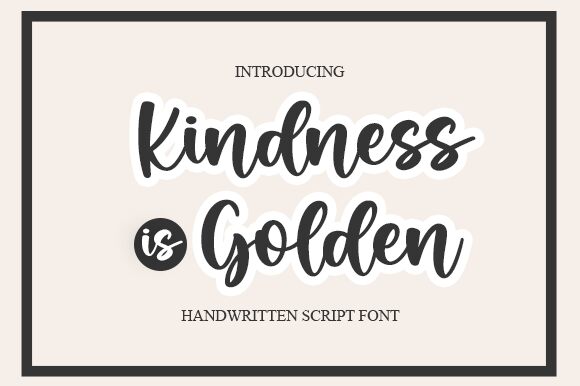
Kindness Is Golden
Kindness is Golden, the smooth brush semi-bold font designed by Graphix Line Studio, is the perfect choice for your next creative project. Its fluid strokes and soft curves lend a unique touch of elegance and sophistication to any design. Whether you're working on a wedding invitation, logo design or a social media graphic, Kindness is Golden adds just the right amount of personality and character to your work. This versatile typeface will complement a variety of styles and themes, from modern to vintage. Give your designs that extra touch of warmth and friendliness with Kindness is Golden.